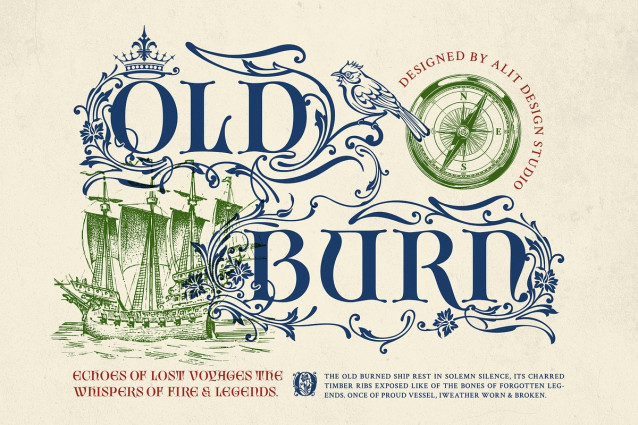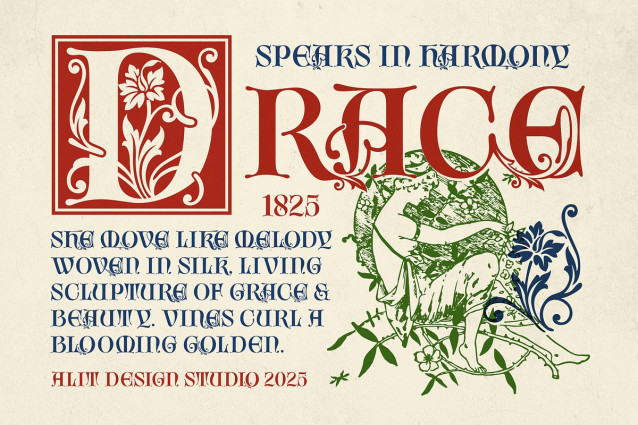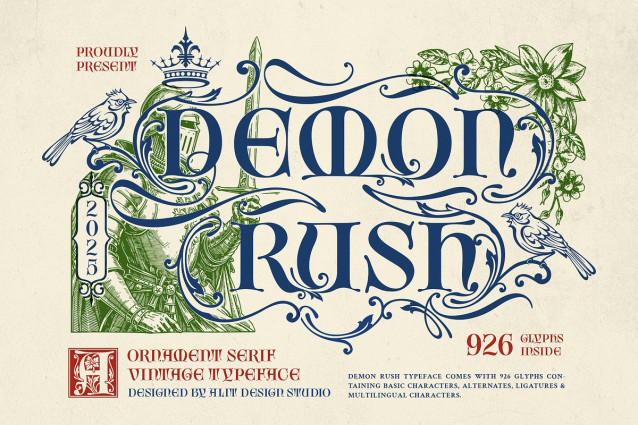
Demon Rush Font
Demon Rush Font, a profoundly versatile vintage serif typeface. This isn’t just a collection of letters; it’s a complete design toolkit for storytellers, meticulously crafted to infuse your projects with the weight of history and the beauty of intricate ornamentation.
The Foundation: A Classic & Robust Serif At its core, Demon Rush features a beautifully drawn classic serif font. With its strong structure, balanced letterforms, and excellent readability, the base typeface stands confidently on its own. It provides a solid and elegant foundation, ensuring that even in its simplest form, your text conveys authority and sophistication.
A Treasure Trove of Glyphs: Over 926+ Characters The true power of Demon Rush is unlocked through its vast library of over 926 glyphs. This extensive collection includes a stunning array of alternates and stylistic sets that give you complete creative control.